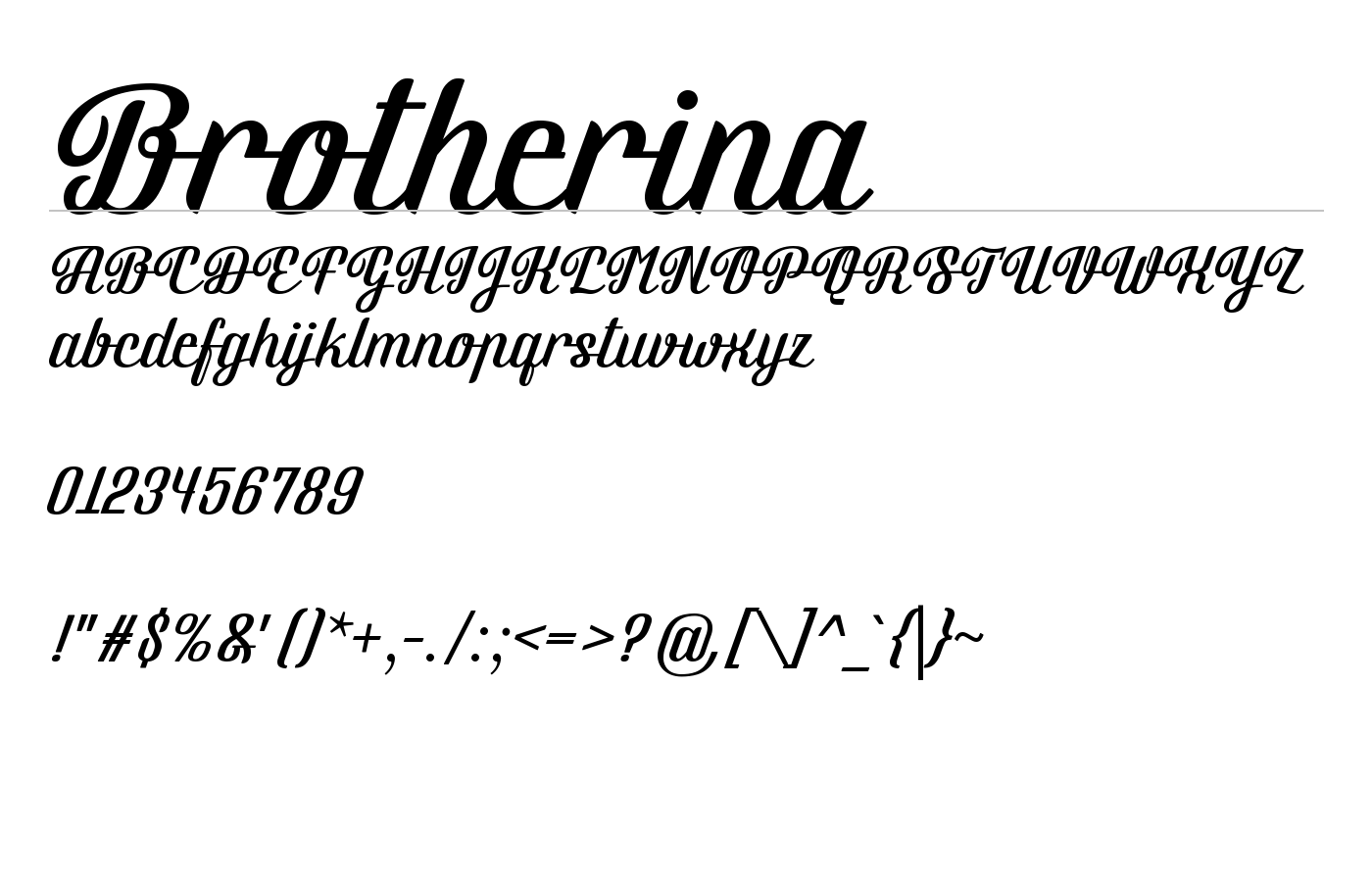
Brotherina is a stylish script font with a smooth, flowing design that combines elegance with a modern touch. Its moderate contrast and slightly condensed letterforms give it a refined yet approachable personality, making it ideal for branding, invitations, and headlines that want to convey sophistication without feeling overly formal. This font works beautifully where a charming, handwritten aesthetic is desired, adding a sense of warmth and creativity to any design.
Brotherina Font
About Brotherina Font
| Font family | Brotherina Font |
| Designer | Situjuh Nazara |